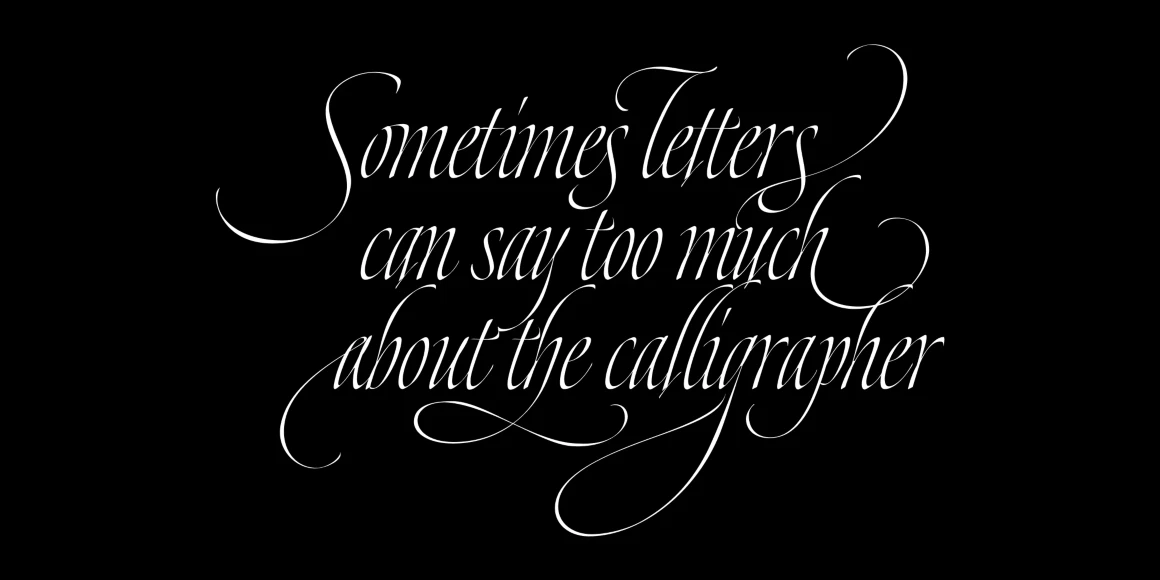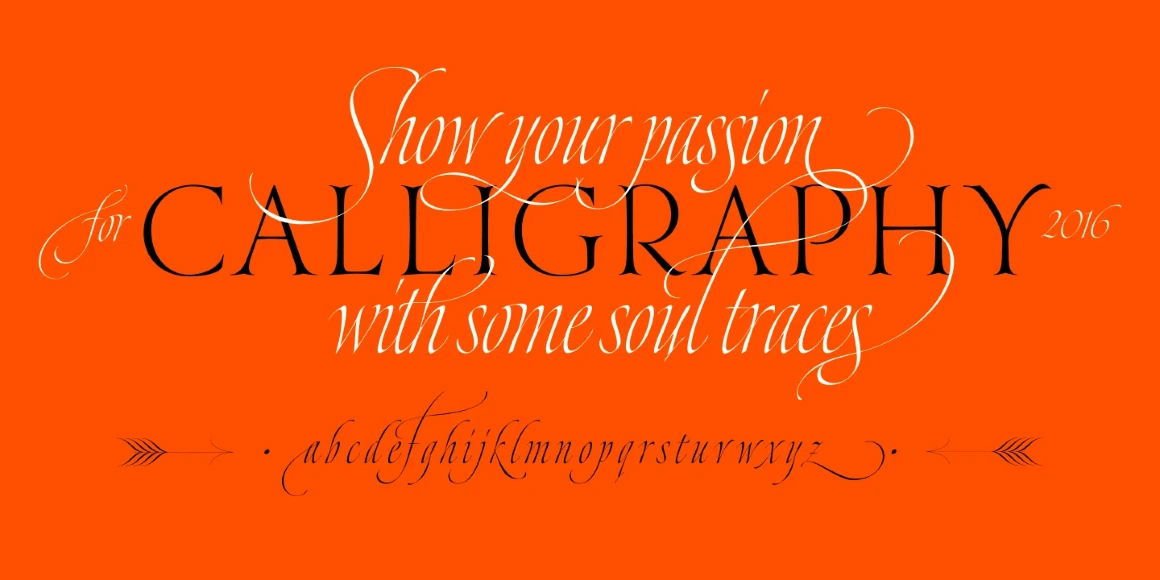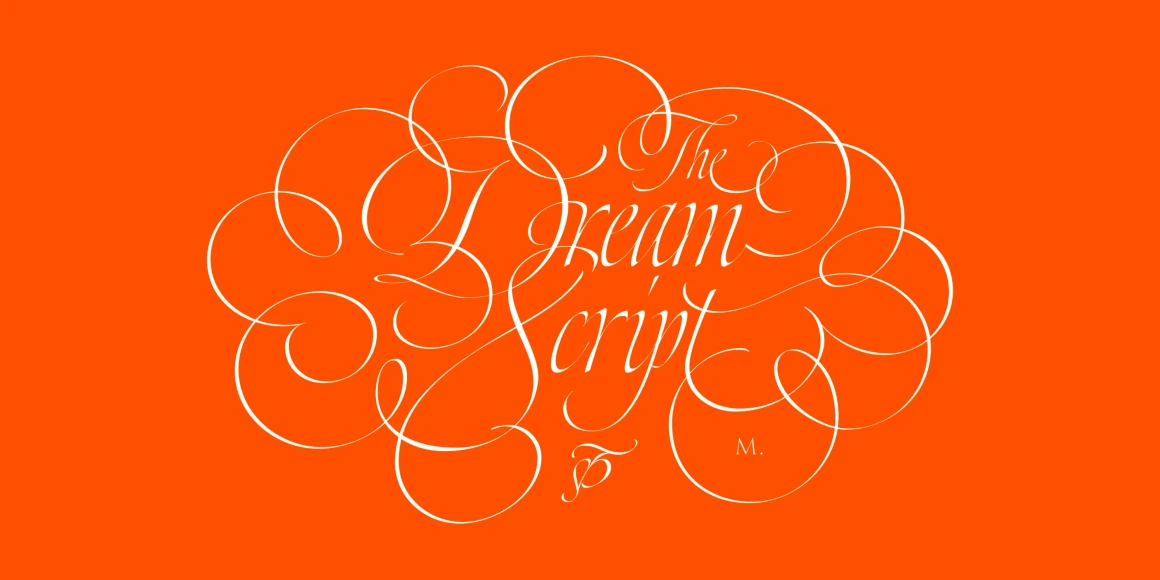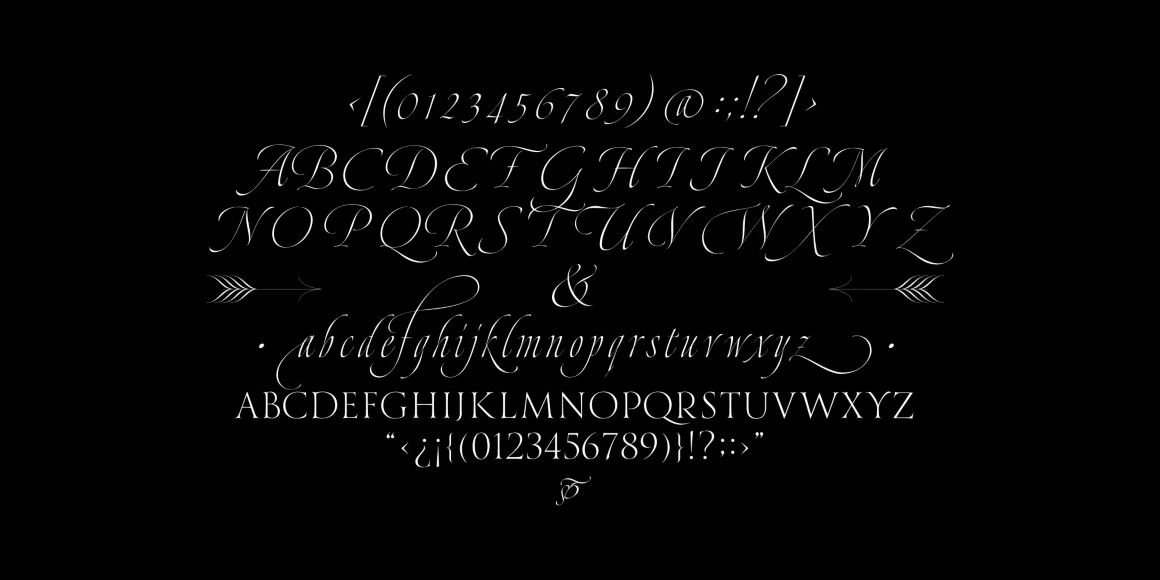
Dream Script
Dream Script Caps
Dream Script Regular
Dream Script results from a desire to design a chancery cursive full of life and expression. Max took inspiration from the works of master calligraphers such as Julian Waters, John Stevens, and Denis Brown — and has given designers a typeface that feels closer to calligraphy with every use. The magic is in the subtle details, such as the pen angle constantly changing to create an even but playful rhythm. Dream Caps, taking cues from the Trajan capitals, act as a beautiful foil for the script.